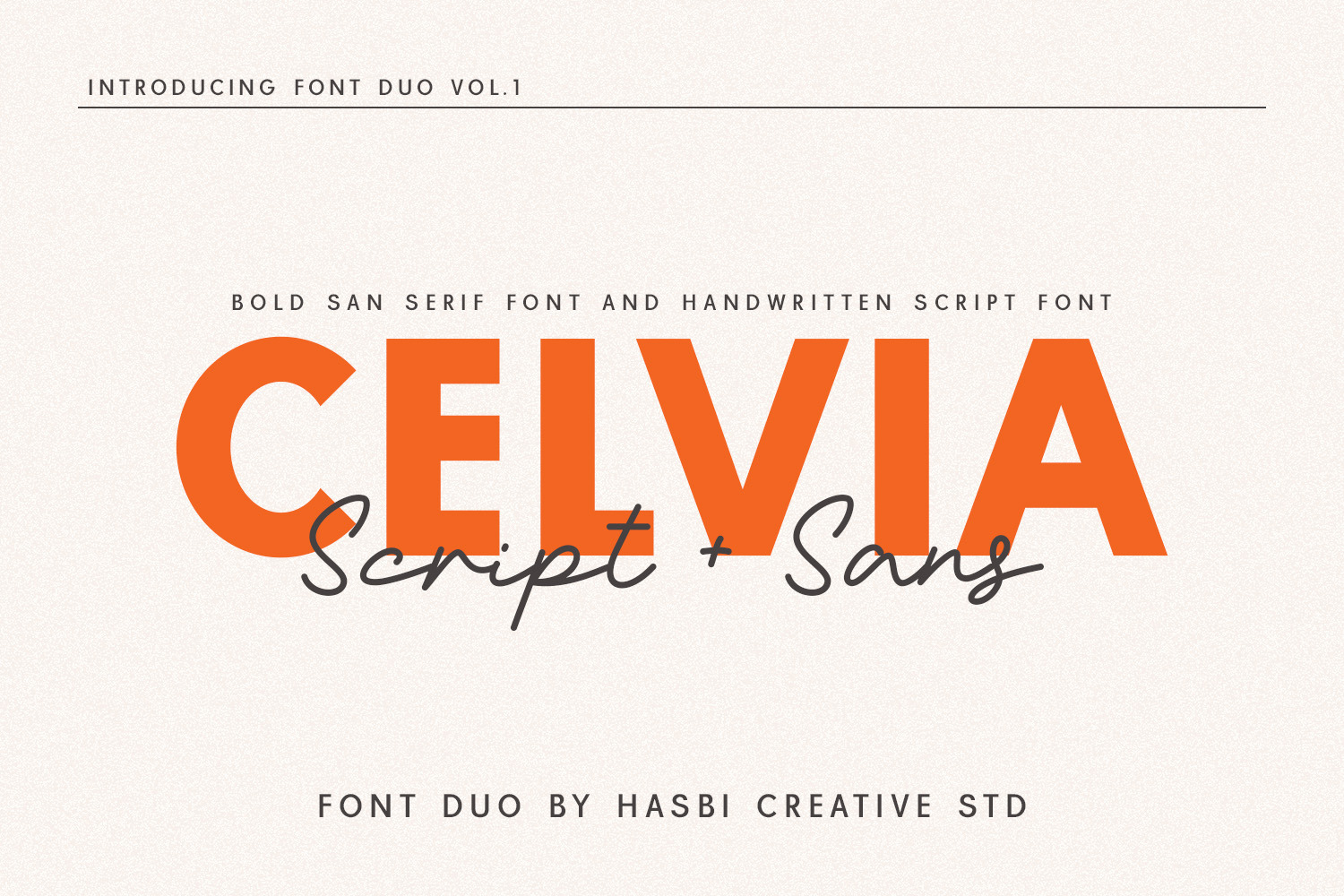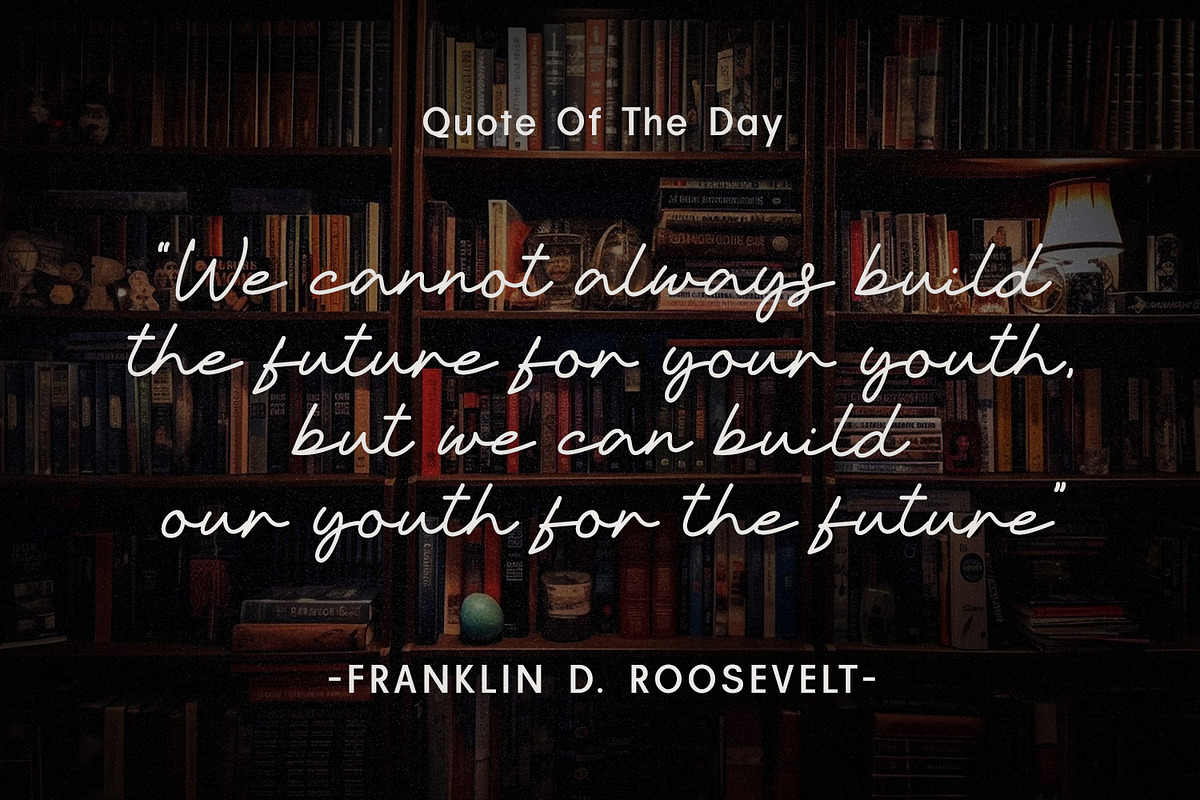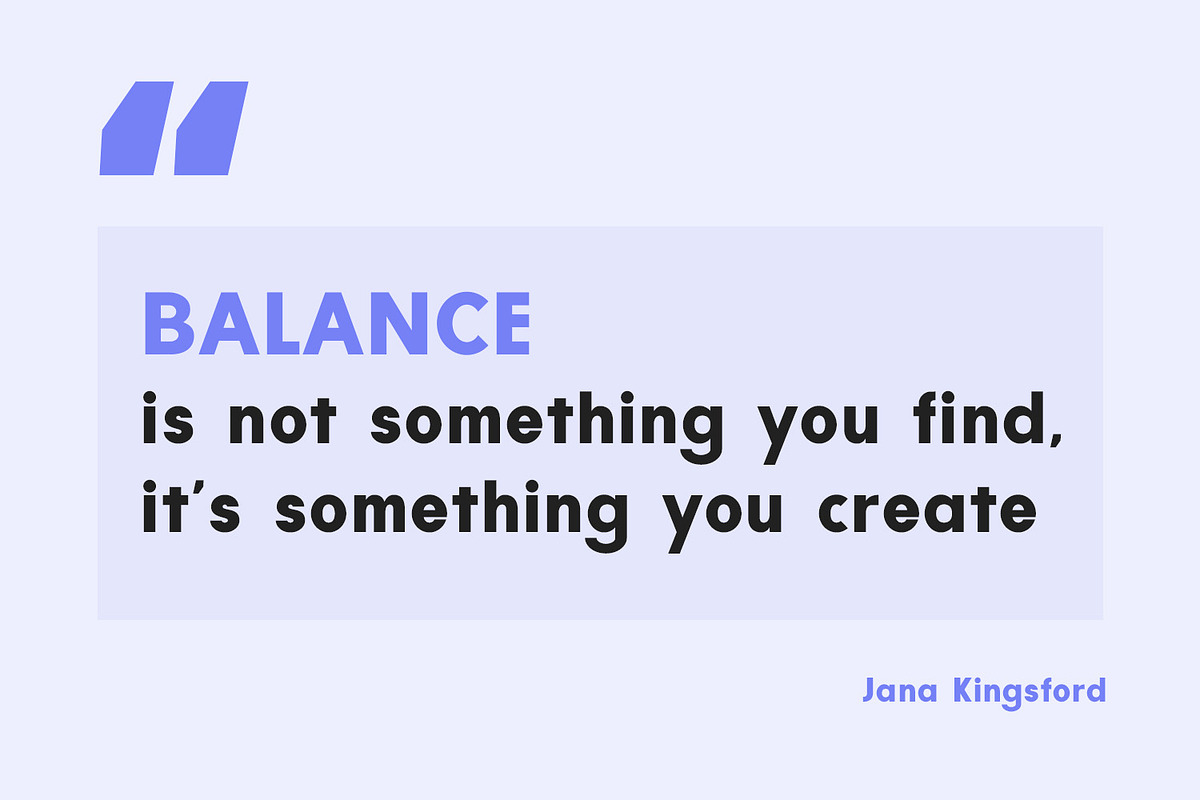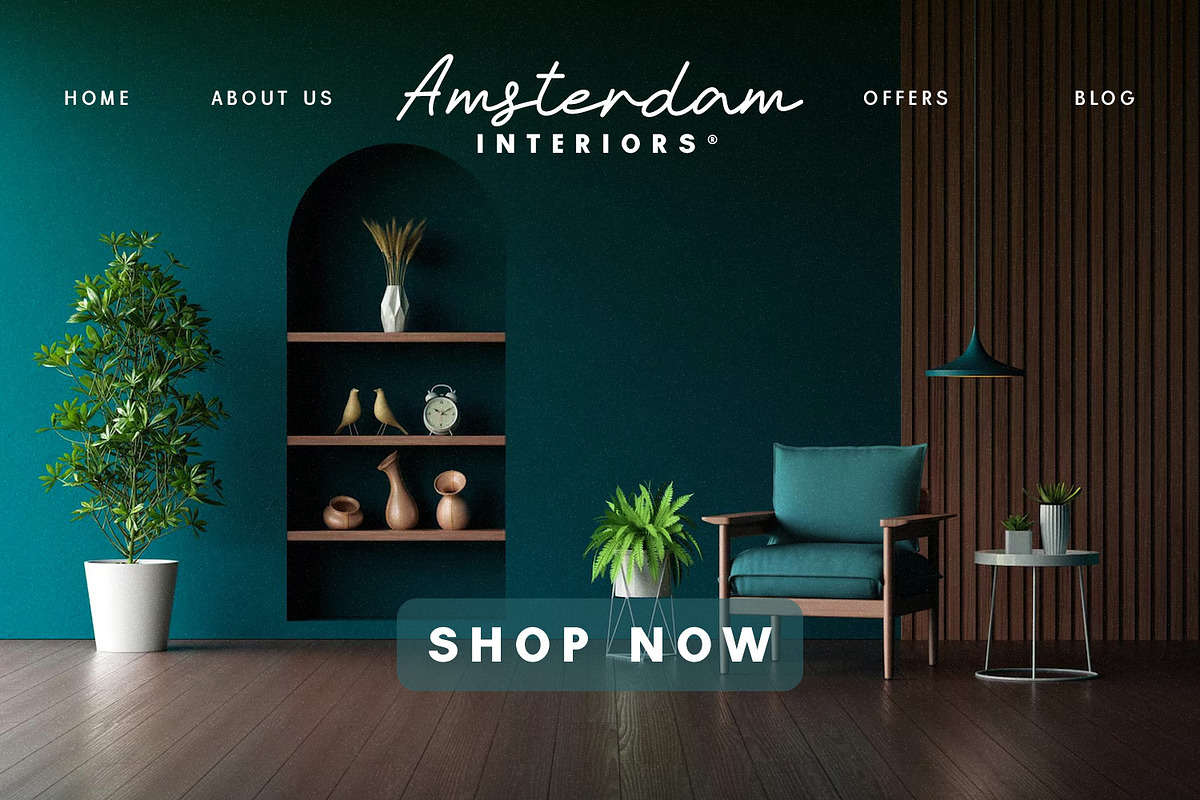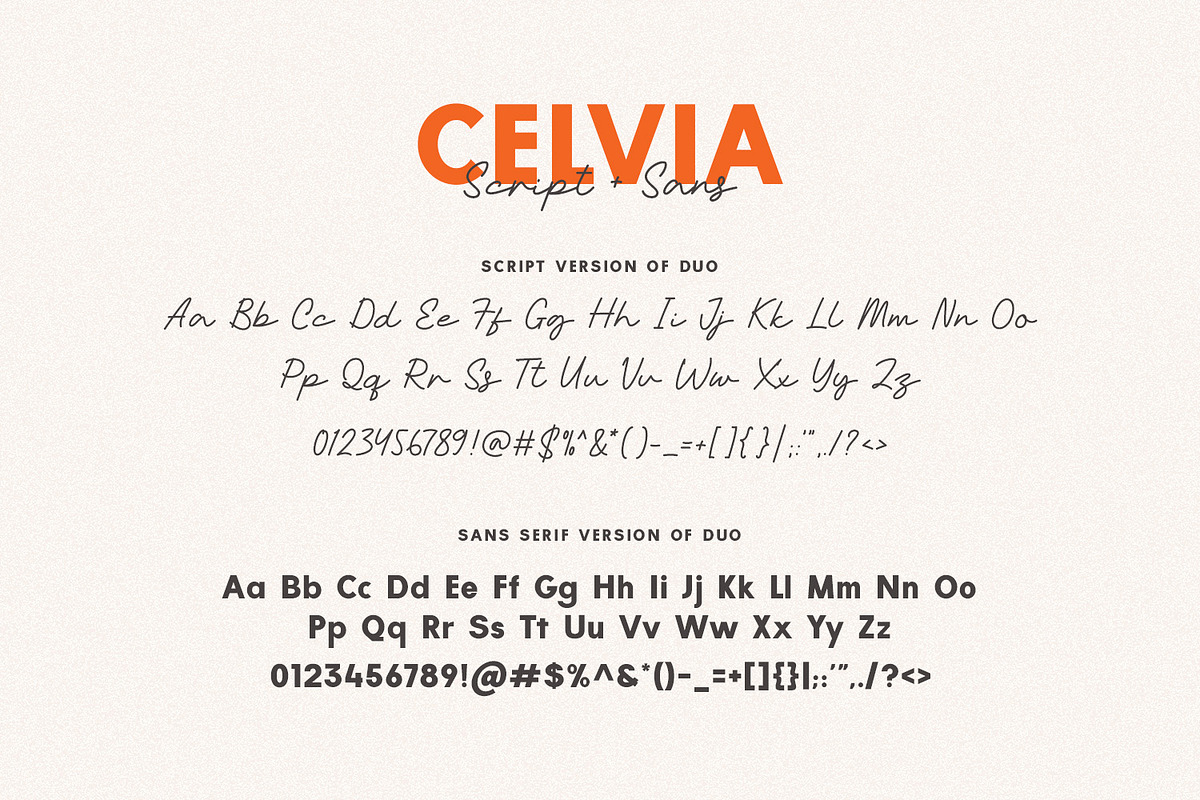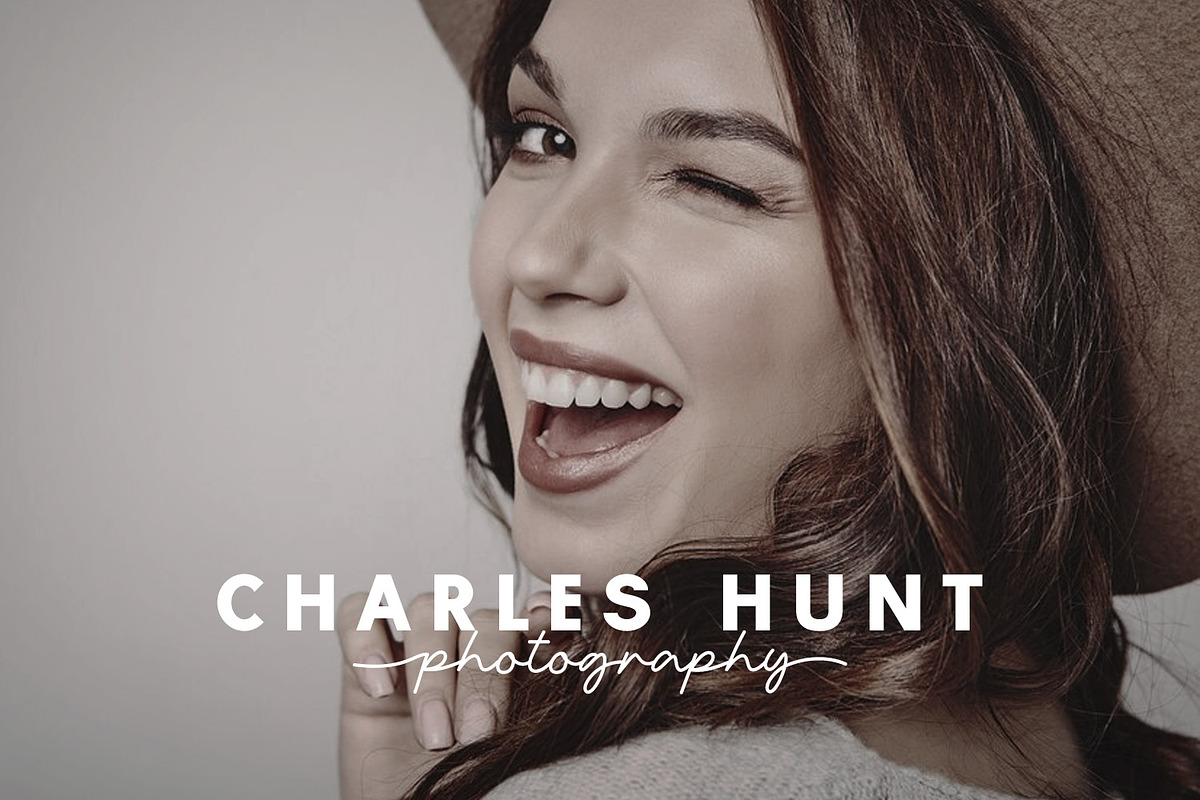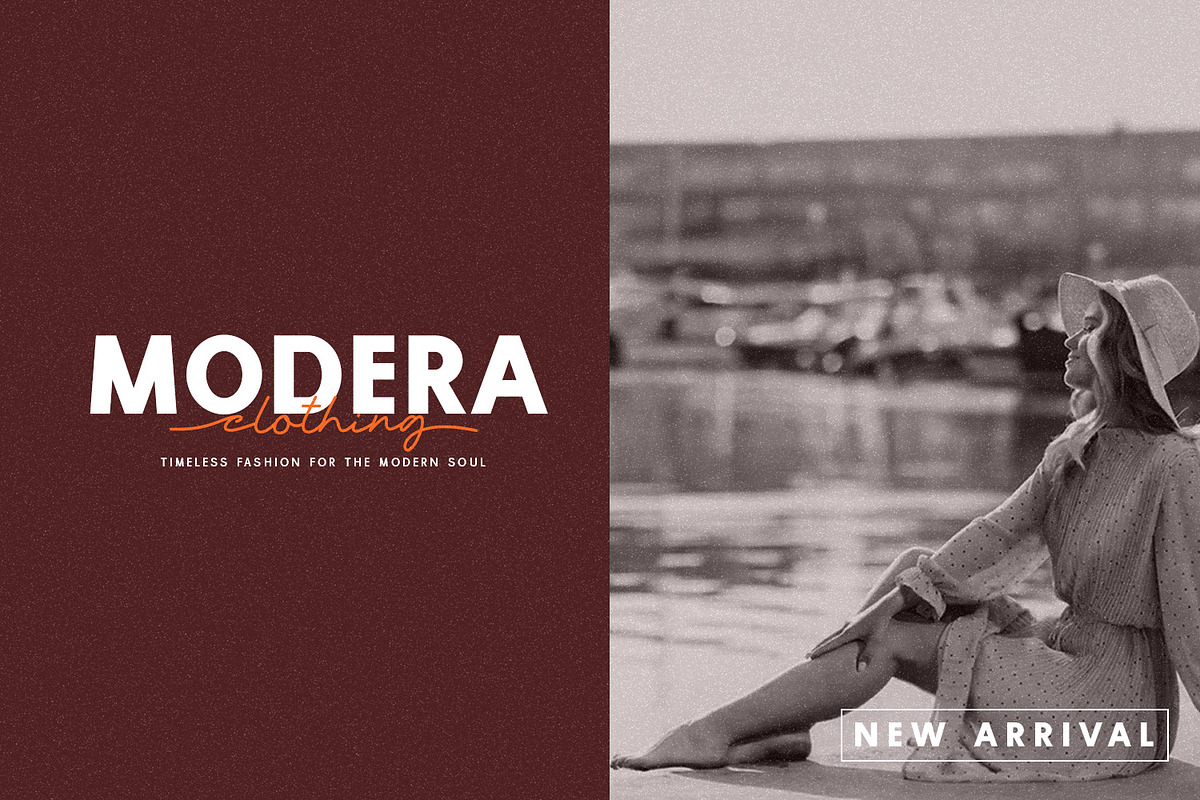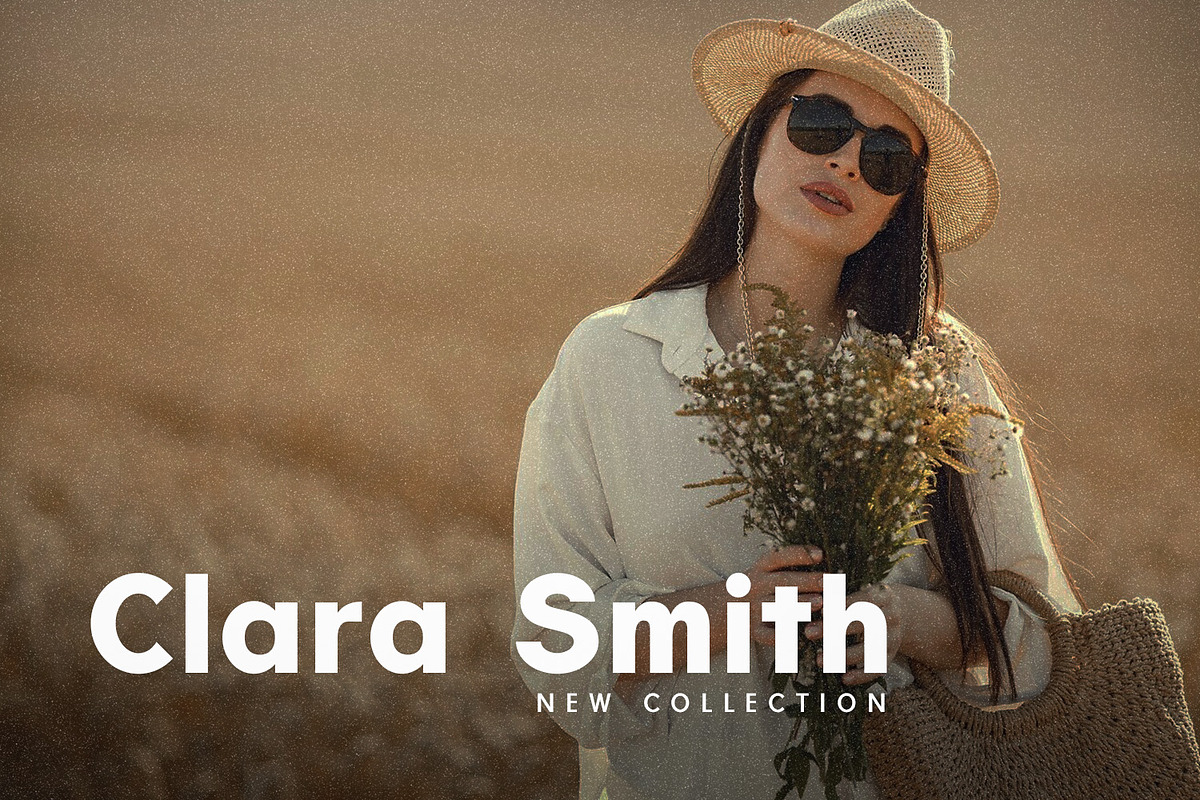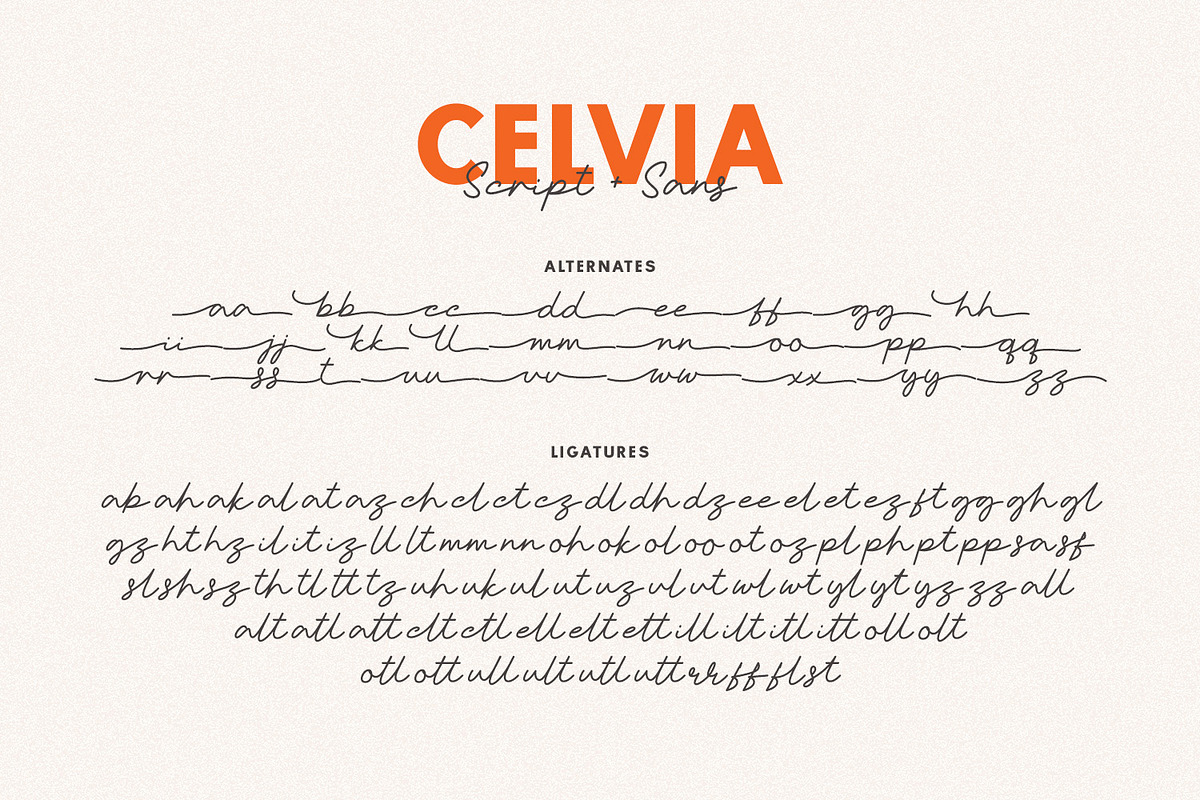
Celvia – Elegant Script & Sans Font
Introducing Celvia, a modern and elegant font duo that combines a soft handwritten script with a bold, clean sans serif. Designed for effortless pairing, Celvia offers beautiful contrast and harmony between its two styles, making it perfect for fashion branding, editorial layouts, social media, packaging, and logo design.
Whether you're creating a chic fashion label, a wedding stationery suite, or a personal brand identity, Celvia gives you the flexibility and charm to elevate your visuals with sophistication.
Ligatures & Alternates (Script)
Fashion & lifestyle branding
Wedding and beauty logos
Editorial & magazine layouts
Packaging design
Invitations & personal projects
Celvia — where softness meets structure in perfect harmony.